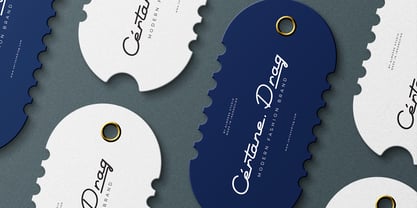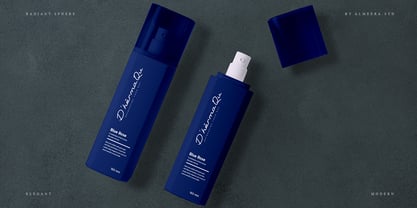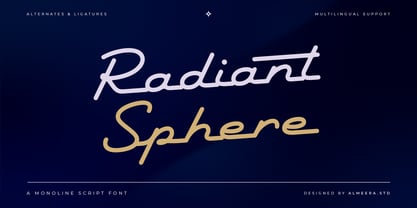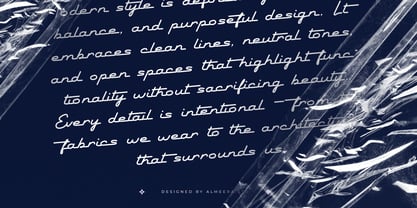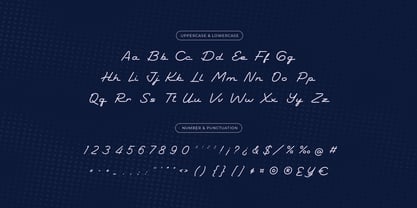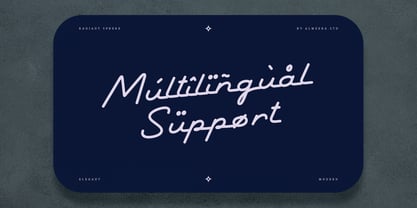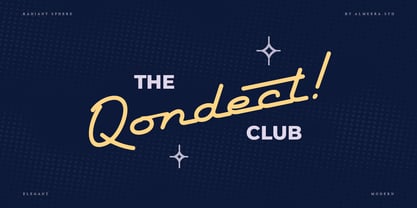
Radiant Sphere
by Almeera Studio
The Radiant Sphere Font Family was designed by Rinto Dwi Nugroho and published by Almeera Studio. Radiant Sphere contains 1 styles.
Radiant Sphere is a monoline script font inspired by retro signage and modern minimalism. With its clean, connected strokes and dynamic rhythm, this font brings a balance of vintage personality and contemporary style. Ideal for logos, headlines, posters, and branding, Radiant Sphere shines in both digital and print applications. Equipped with alternates & ligatures and multilingual support, it’s designed to be versatile, legible, and effortlessly stylish — perfect for designers who want a sleek and radiant typographic identity. Thank you and I hope you enjoy it!
Designers: Rinto Dwi Nugroho
Publisher: Almeera Studio
Foundry: Almeera Studio
Almeera Studio is a foundry based in Temanggung Indonesia. We create masterpieces with Love for unlimited projects Just For You. Almeera Studio strives to create unique and attractive fonts that can be used for all kinds of needs that prioritize aesthetics and stand out from the rest. We always create unique fonts because we believe that unique fonts will have its own taste for users.